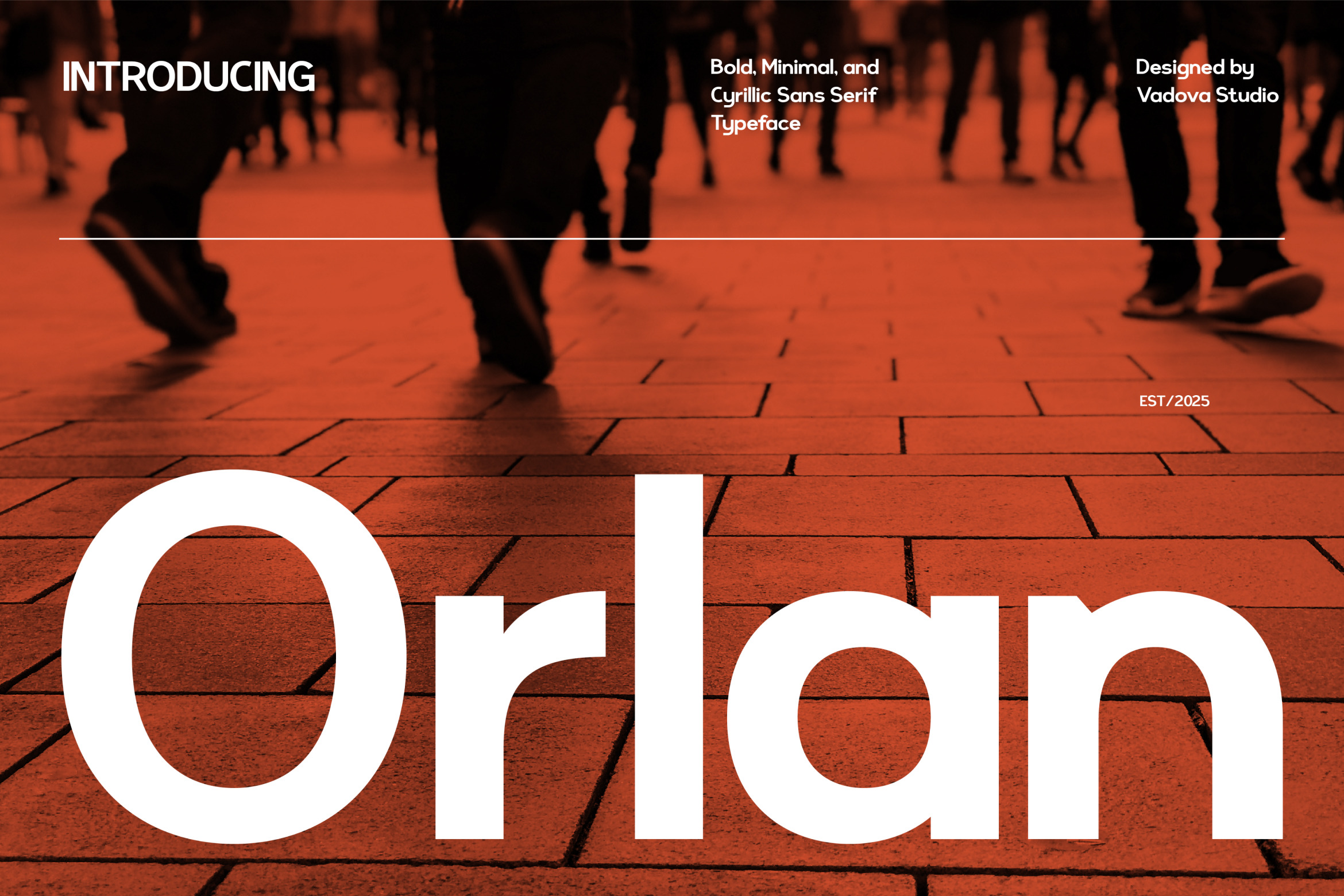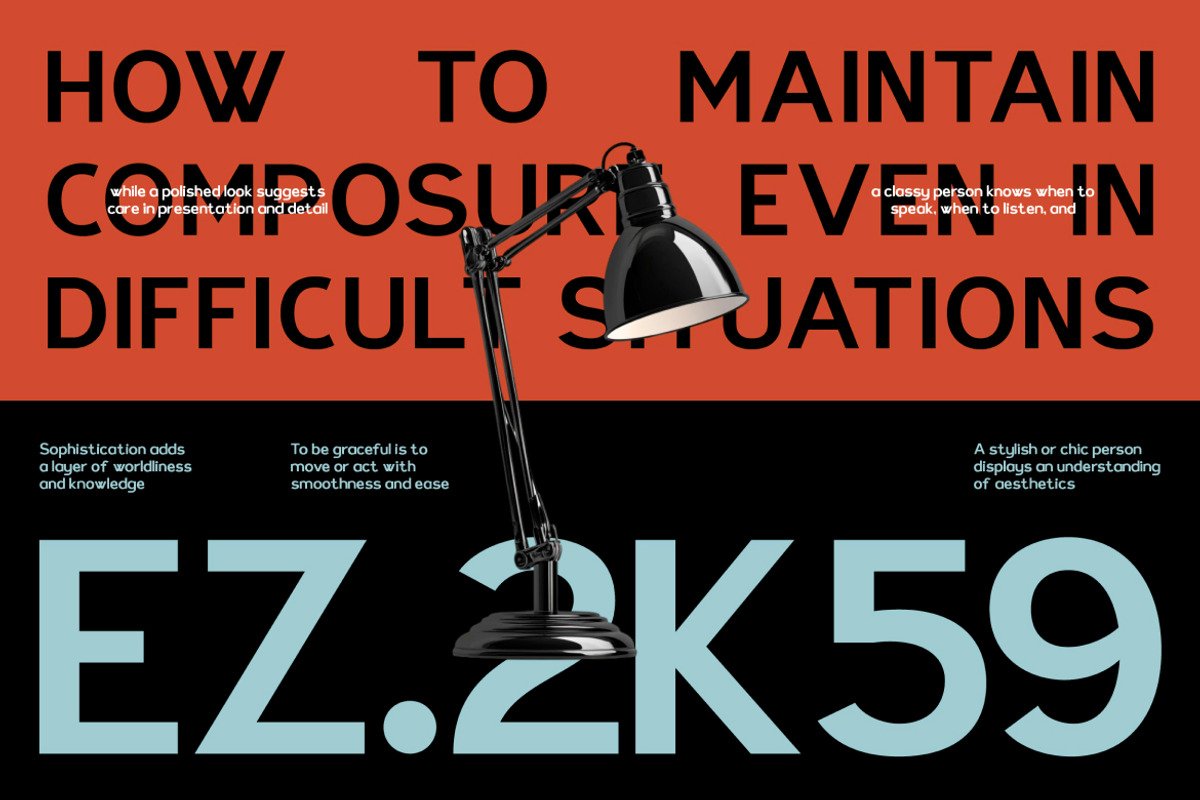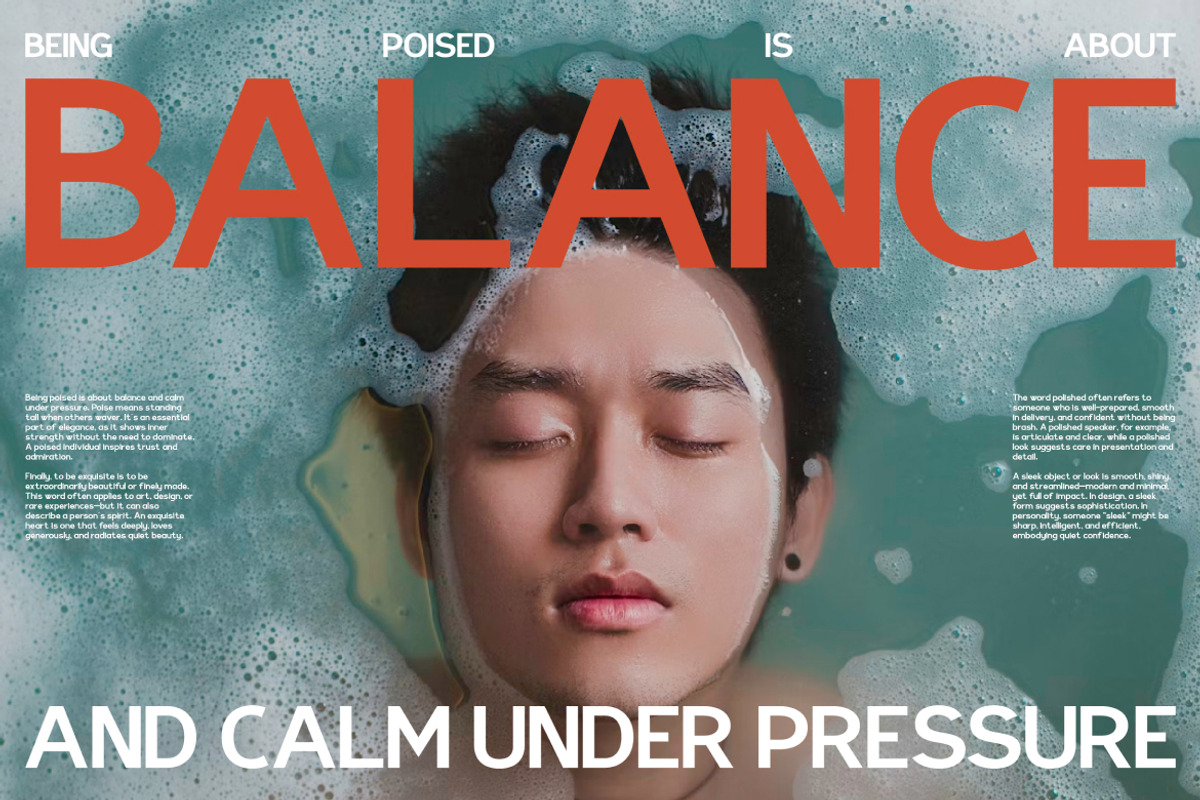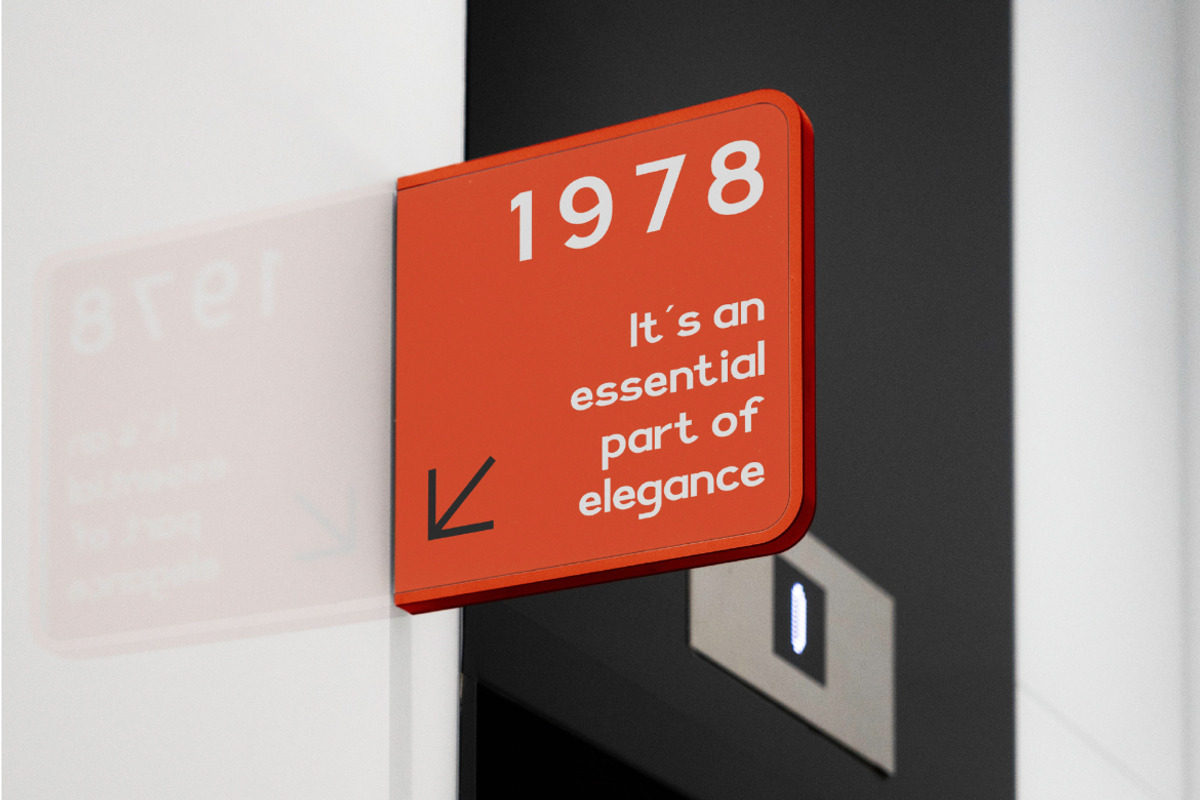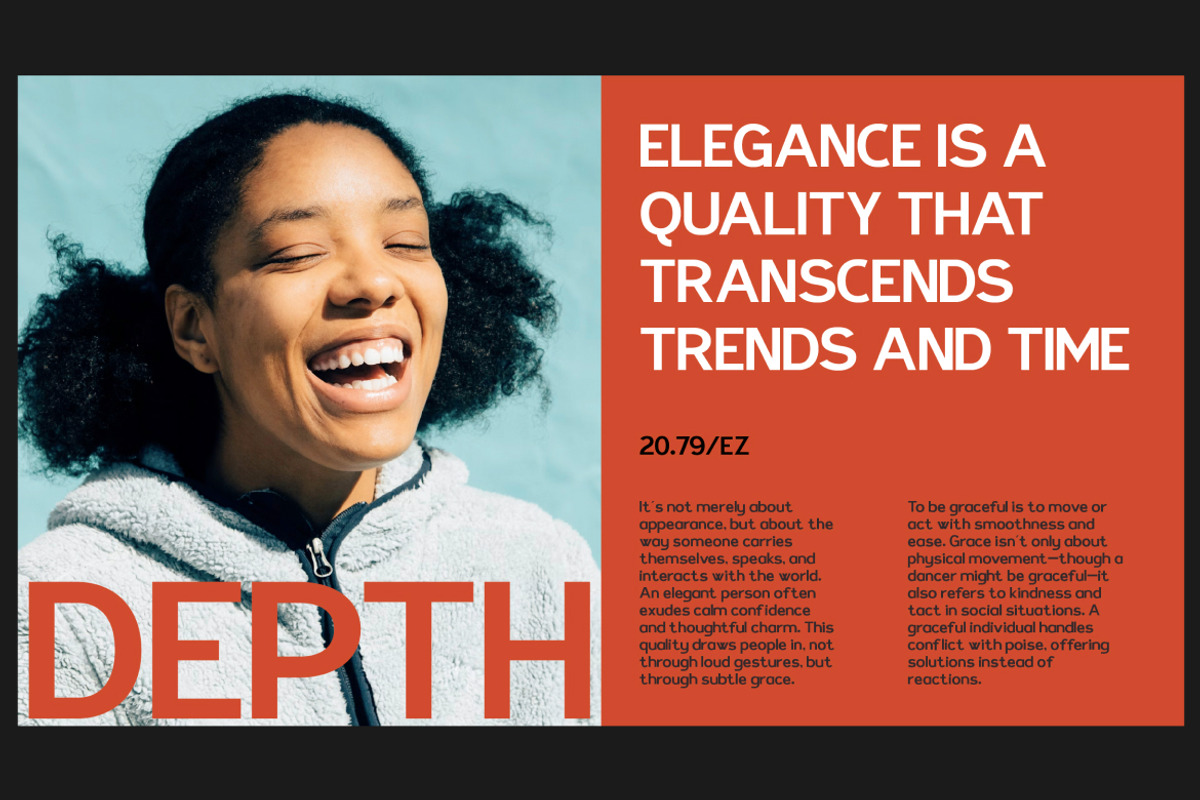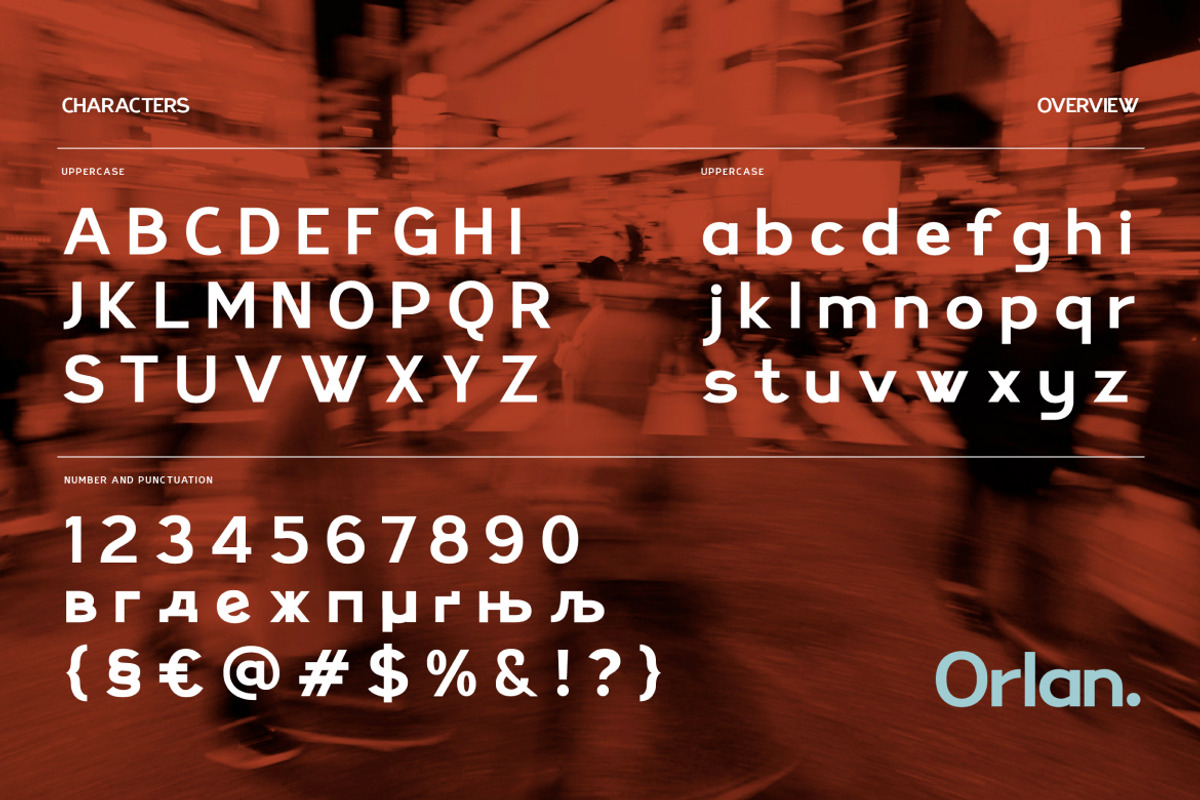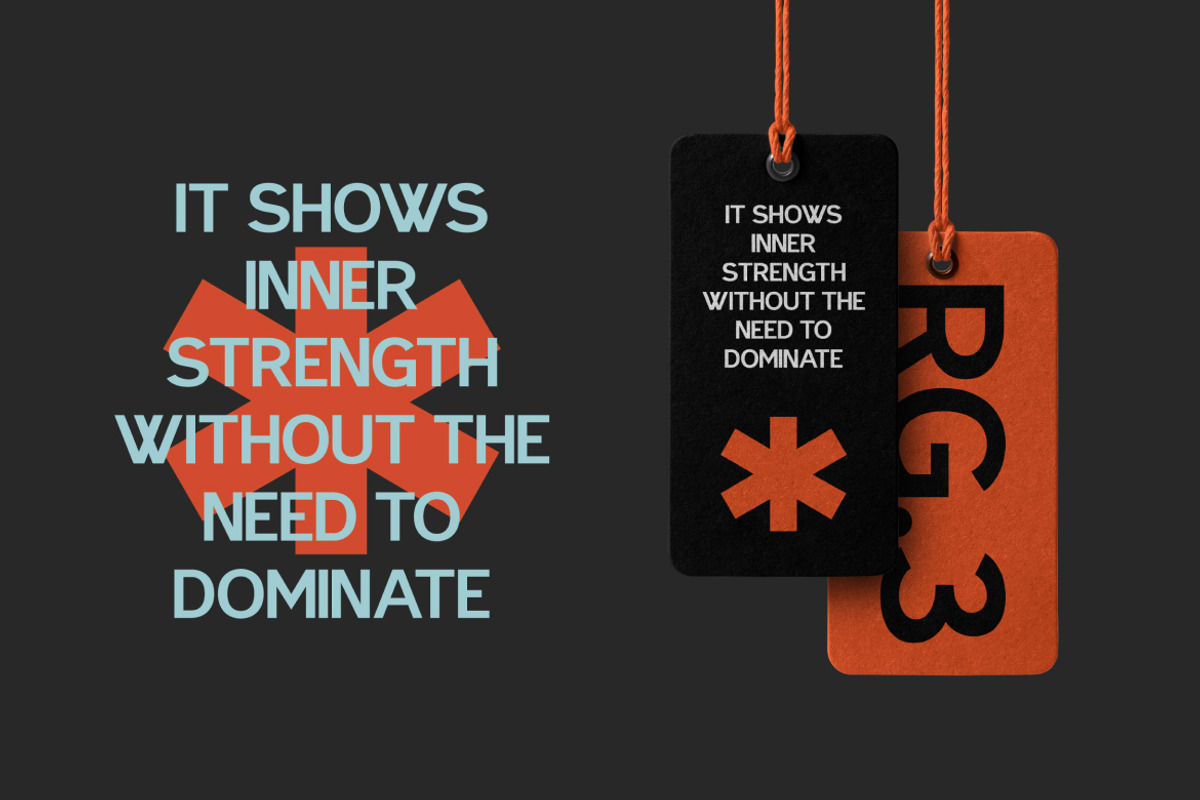
Orlan Cyrillic Sans Serif Font
Orlan is a bold and contemporary sans serif typeface designed to deliver clarity, authority, and a sleek urban vibe. With clean lines and structured forms, Orlan thrives in modern branding, digital products, and professional communication. It's minimalist by design, yet powerful in presence making it a must-have for creatives who need bold statements without visual clutter.
One of Orlan’s standout features is its Cyrillic support, enabling you to scale global without sacrificing style. From clean uppercase forms to smooth lowercase flow, every character is optimized for visual harmony. The font includes numerals, punctuation, symbols, and multilingual support all packed into OTF, TTF, and WOFF formats for maximum compatibility.
- Modern sans serif style with a minimalist, geometric structure
- Bold yet neutral appearance ideal for branding, tech, and editorial work
- Full character set including uppercase, lowercase, numbers, and symbols
- Includes full Cyrillic support for multilingual and international use
- Perfect for UI/UX, apps, corporate, startup branding
- Optimized for screen clarity and print crispness
- Great pairing font for logos, websites, and headlines
- Efficient letter spacing for clean layout design
Relevance and Use Cases is startups, tech brands, editorial layouts, marketing materials, and UI/UX interfaces. Whether you’re working on a website header, app dashboard, or corporate identity, Orlan brings balance, boldness, and reliability to your typography.